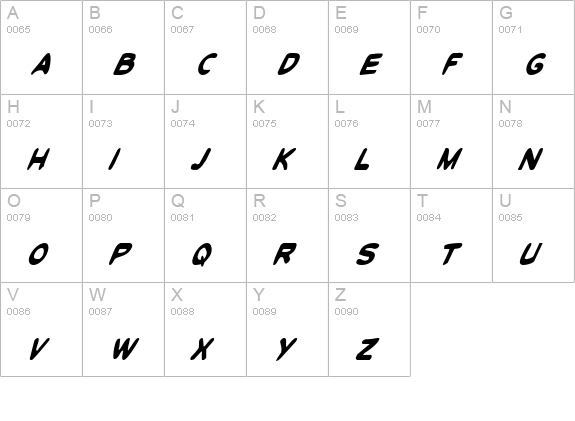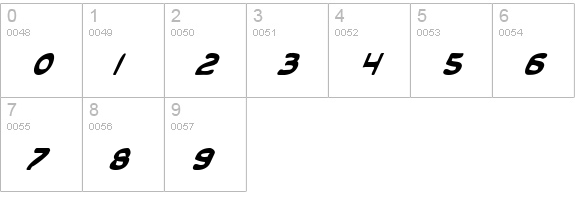
Toon Town Industrial Cond Ital is a distinctive, condensed-width variant in the Toon typeface family \xE2\x80\x94 well suited to design and typography projects.
Toon Town Industrial Cond Ital font is a captivating and stylish typeface that exudes a playful and whimsical vibe. Its condensed and italicized design adds a unique touch to any project, making it perfect for a variety of creative endeavors. This font combines the charm of classic cartoon typography with a modern industrial twist, resulting in a visually striking and eye-catching display. Its bold and dynamic letterforms effortlessly capture attention and bring life to any design. The Toon Town Industrial Cond Ital font is not only visually appealing but also highly versatile. Whether you're designing a logo, creating a poster, or crafting a comic strip, this font will enhance your work and give it a distinctive and memorable look. One of the best things about this font is that it is available for free download at FontsMarket.com. This means that you can easily access and utilize this amazing typeface without any cost. With just a few clicks, you can add a touch of creativity and charm to your projects, all without breaking the bank. Don't miss out on the opportunity to enhance your designs with the Toon Town Industrial Cond Ital font. Download it for free at FontsMarket.com and let your imagination run wild as you create stunning and captivating visual experiences.